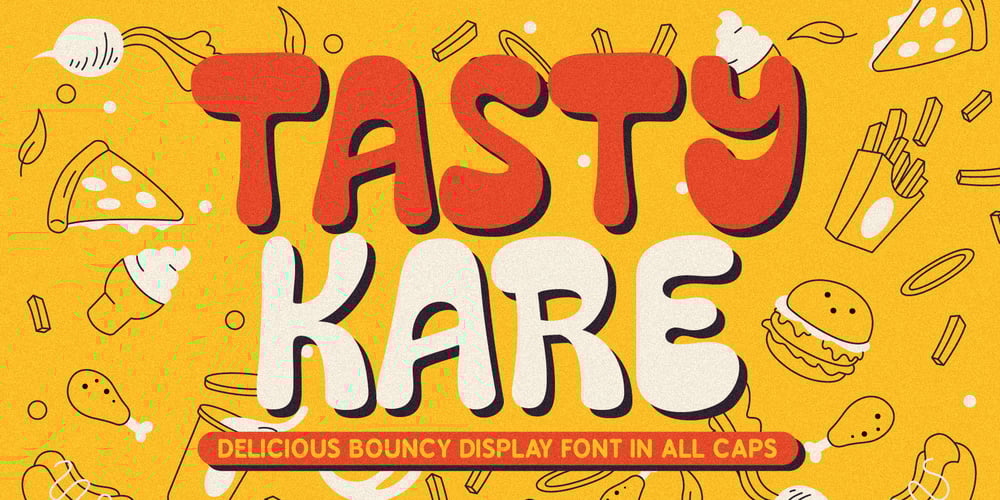
Tastykare Font Family was designed by Gha Arizal and published by Invasi Studio. Tastykare contains 1 styles and family package options. Are you looking for a font that’s as delicious as your favorite food? Meet Tastykare Font! It’s a playful, all caps display font that gives your designs a retro-bold, bouncy vibe. Whether you’re working on a menu, a recipe book, or a food blog, this font is perfect for anything culinary.Tastykare Font is super versatile, with alternates and multilingual support. So, it doesn’t matter if you’re cooking up a flyer for a local event or a poster for a big campaign – this font has got you covered. So, go ahead and satisfy your hunger for design with Tastykare Font!